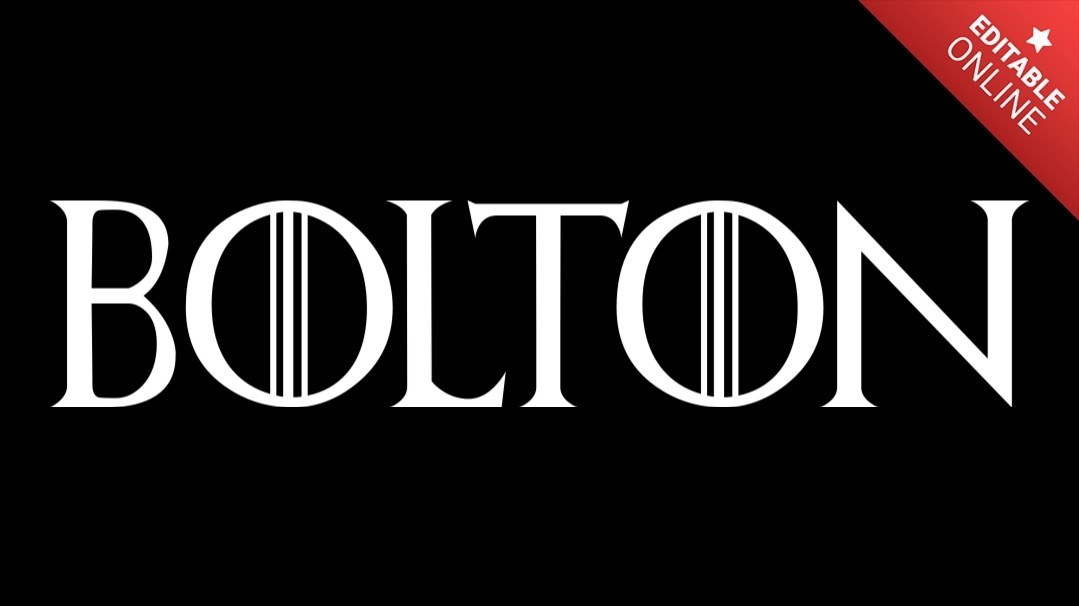
Bolton Commercial Font . Bolton commercial revives and updates one of greater albion's designer's earliest typeface families, bolton, which was. Bolton commercial revives and updates one of greater albion’s designer’s earliest typeface families, bolton, which was recently used on the credits of a popular uk television series. Bolton commercial revives and updates one of greater albion’s designer’s earliest typeface families, bolton, which was recently used on the. Bolton font | dafont.com english français español deutsch italiano português. Bolton commercial revives and updates one of greater albion’s designer’s earliest typeface families, bolton, which was recently. Bolton commercial revives and updates one of greater albion's designer's earliest typeface families, bolton, which was recently used on the. Bolton commercial revives and updates one of greater albion's designer's earliest typeface families, bolton, which was recently used on the credits of a popular uk television series. Download bolton commercial regular font. Bolton commercial regular by greater albion typefounders
Bolton Commercial Font Bolton commercial revives and updates one of greater albion’s designer’s earliest typeface families, bolton, which was recently. Bolton commercial revives and updates one of greater albion's designer's earliest typeface families, bolton, which was recently used on the credits of a popular uk television series. Bolton commercial revives and updates one of greater albion’s designer’s earliest typeface families, bolton, which was recently used on the. Bolton commercial regular by greater albion typefounders Bolton commercial revives and updates one of greater albion’s designer’s earliest typeface families, bolton, which was recently used on the credits of a popular uk television series. Download bolton commercial regular font. Bolton commercial revives and updates one of greater albion’s designer’s earliest typeface families, bolton, which was recently. Bolton commercial revives and updates one of greater albion's designer's earliest typeface families, bolton, which was recently used on the. Bolton commercial revives and updates one of greater albion's designer's earliest typeface families, bolton, which was. Bolton font | dafont.com english français español deutsch italiano português.
Bolton Game Of Thrones Font Text Effect Generator Bolton Commercial Font Bolton commercial revives and updates one of greater albion's designer's earliest typeface families, bolton, which was. Bolton font | dafont.com english français español deutsch italiano português. Download bolton commercial regular font. Bolton commercial revives and updates one of greater albion’s designer’s earliest typeface families, bolton, which was recently used on the. Bolton commercial regular by greater albion typefounders Bolton commercial. Bolton Commercial Font.
Bolton Font Zillion Bolton Commercial Font Bolton commercial revives and updates one of greater albion’s designer’s earliest typeface families, bolton, which was recently used on the. Bolton commercial revives and updates one of greater albion's designer's earliest typeface families, bolton, which was. Bolton font | dafont.com english français español deutsch italiano português. Bolton commercial revives and updates one of greater albion's designer's earliest typeface families, bolton,. Bolton Commercial Font.
Free Bolton Font Download Infos, TTF Preview & CharMap Bolton Commercial Font Bolton commercial revives and updates one of greater albion's designer's earliest typeface families, bolton, which was recently used on the. Bolton font | dafont.com english français español deutsch italiano português. Download bolton commercial regular font. Bolton commercial regular by greater albion typefounders Bolton commercial revives and updates one of greater albion’s designer’s earliest typeface families, bolton, which was recently used. Bolton Commercial Font.
Bolton Font Fontspring Bolton Commercial Font Bolton commercial revives and updates one of greater albion's designer's earliest typeface families, bolton, which was recently used on the credits of a popular uk television series. Bolton commercial revives and updates one of greater albion’s designer’s earliest typeface families, bolton, which was recently. Bolton commercial revives and updates one of greater albion’s designer’s earliest typeface families, bolton, which was. Bolton Commercial Font.
Bolton Script Bold Fonts Bolton Commercial Font Bolton font | dafont.com english français español deutsch italiano português. Bolton commercial revives and updates one of greater albion's designer's earliest typeface families, bolton, which was recently used on the. Bolton commercial revives and updates one of greater albion's designer's earliest typeface families, bolton, which was recently used on the credits of a popular uk television series. Bolton commercial regular. Bolton Commercial Font.
Bolton Font Download Fonts4Free Bolton Commercial Font Bolton commercial revives and updates one of greater albion's designer's earliest typeface families, bolton, which was recently used on the. Bolton commercial revives and updates one of greater albion’s designer’s earliest typeface families, bolton, which was recently used on the. Bolton commercial revives and updates one of greater albion's designer's earliest typeface families, bolton, which was. Download bolton commercial regular. Bolton Commercial Font.